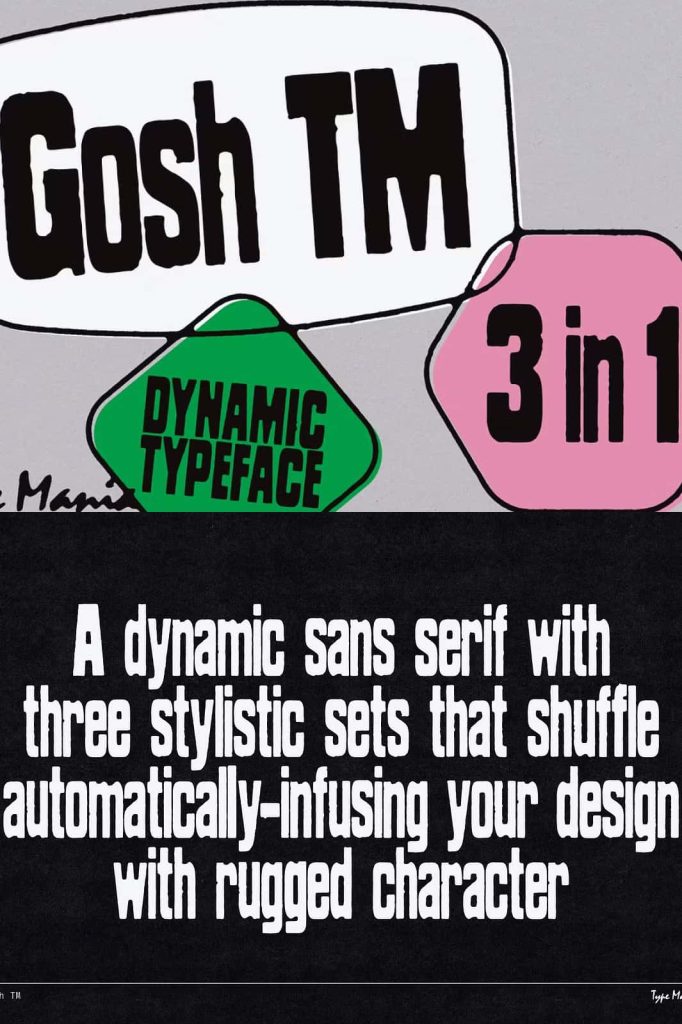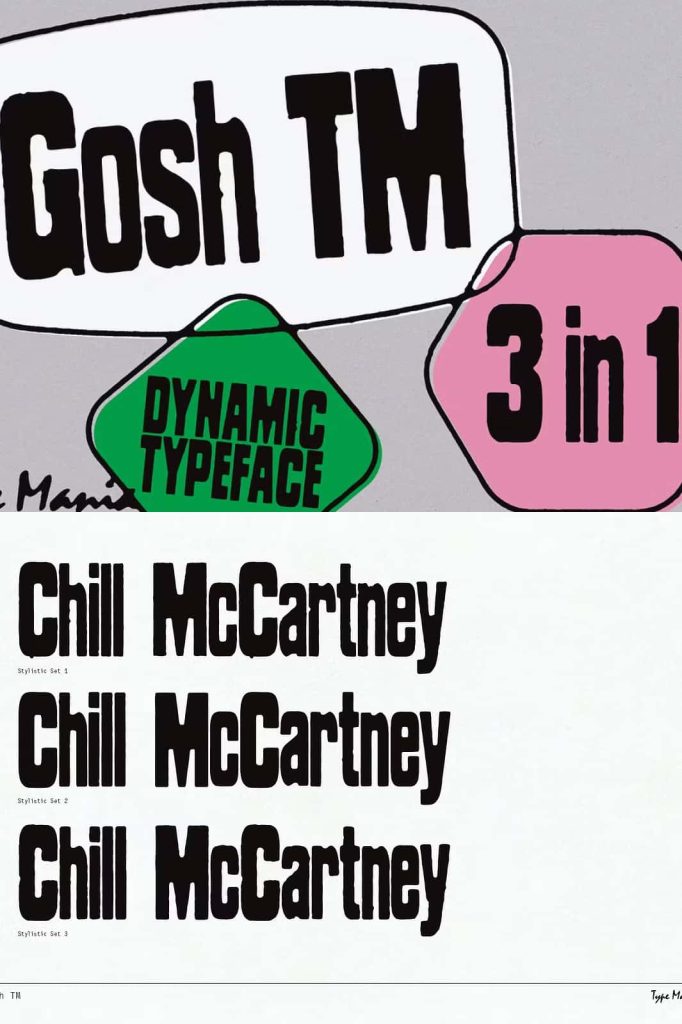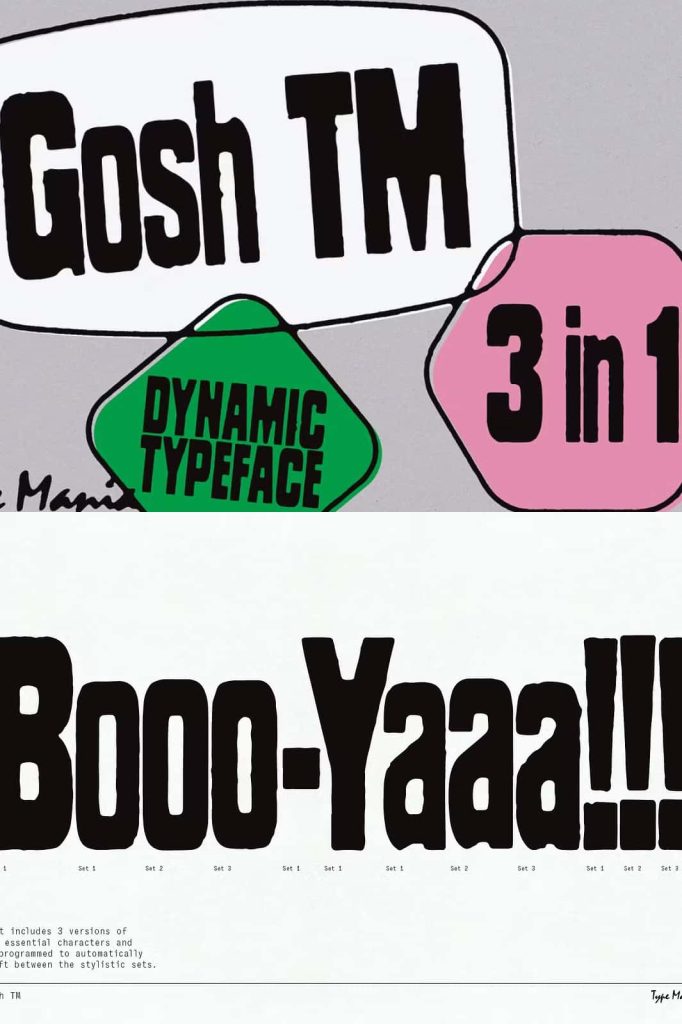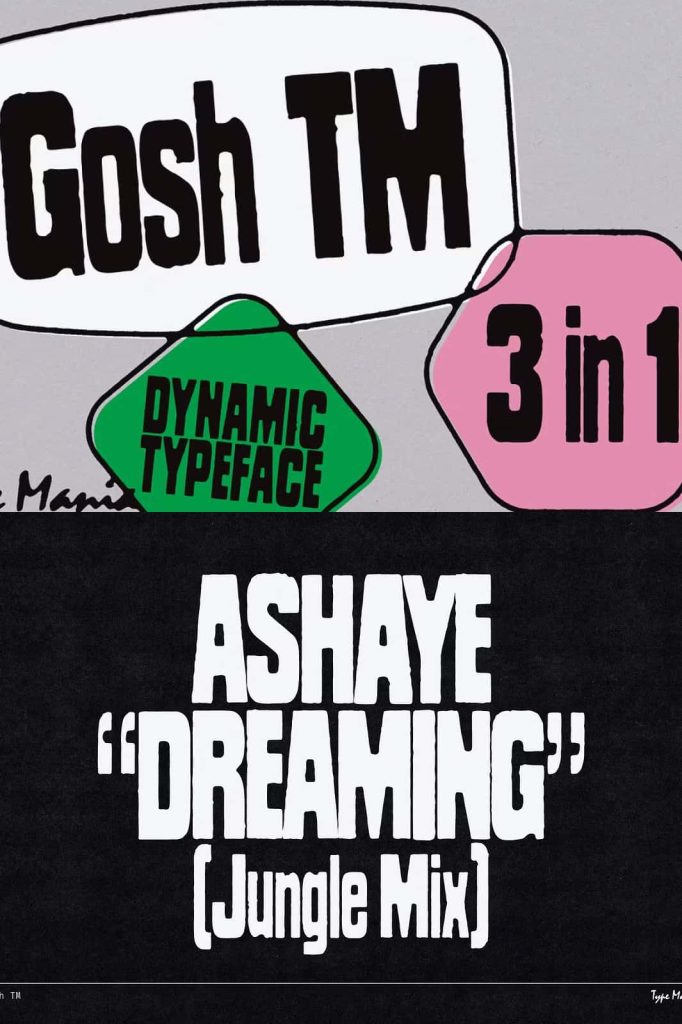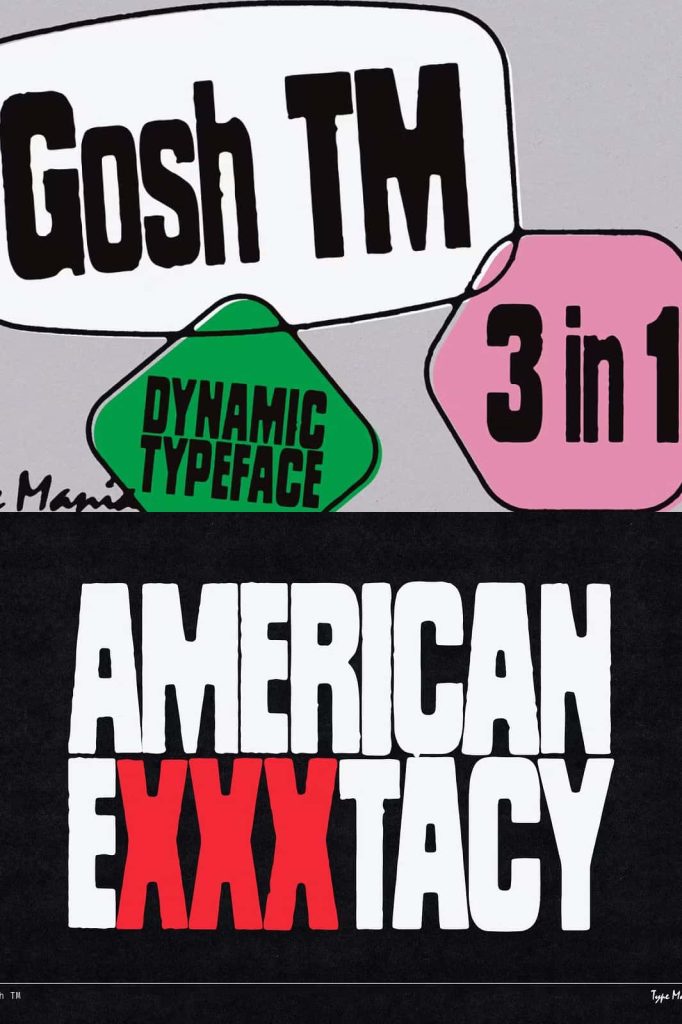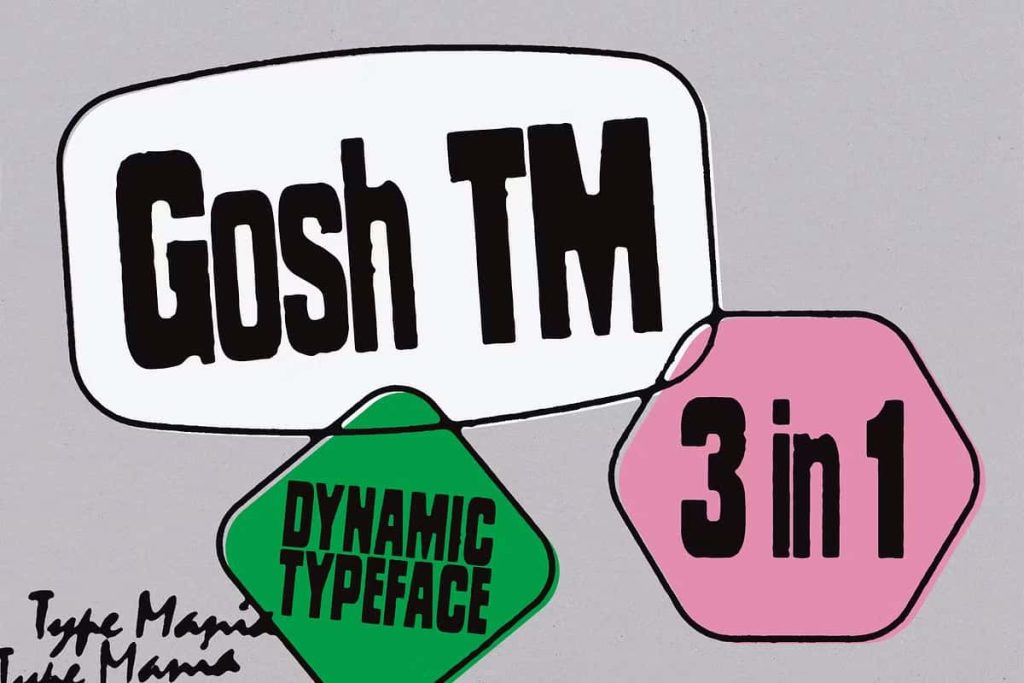
Gosh TM – Soulful Dynamic TypefaceleastedJanuary 12, 2025Fonts Introducing Gosh TM. A soulful typeface merging raw beauty with cutting-edge design features. Download